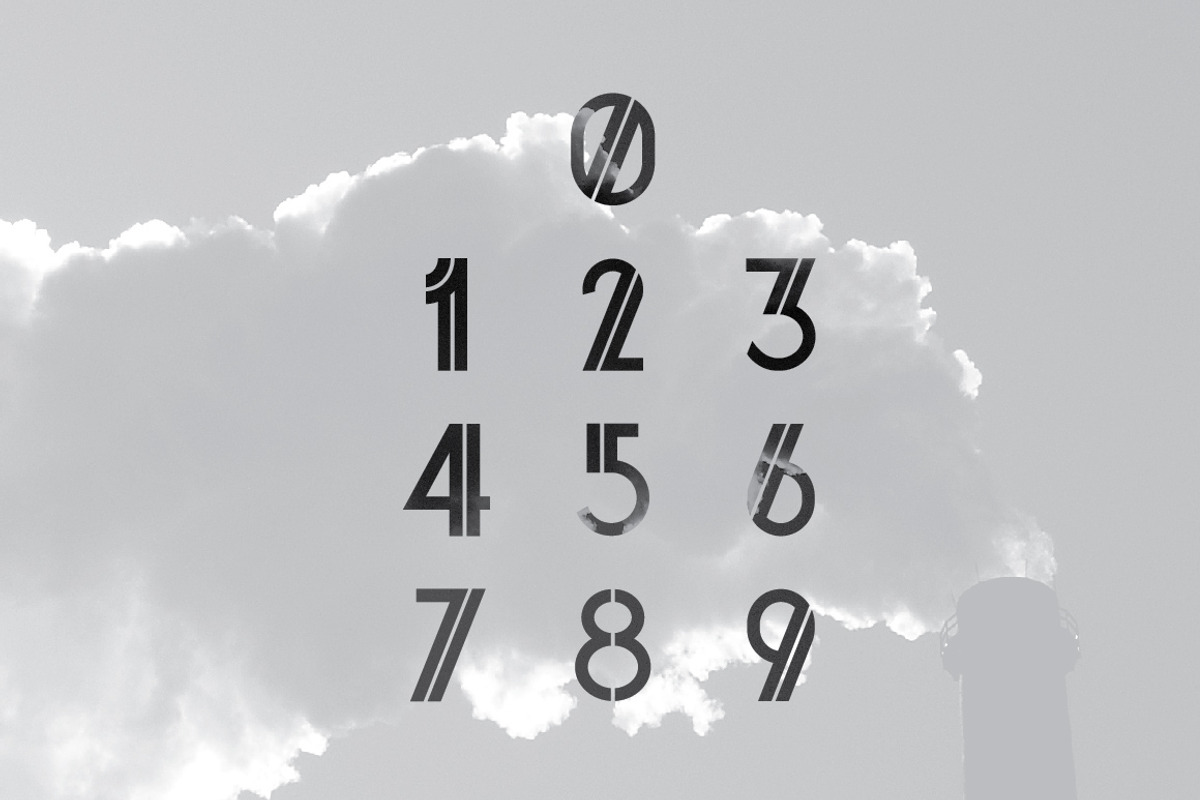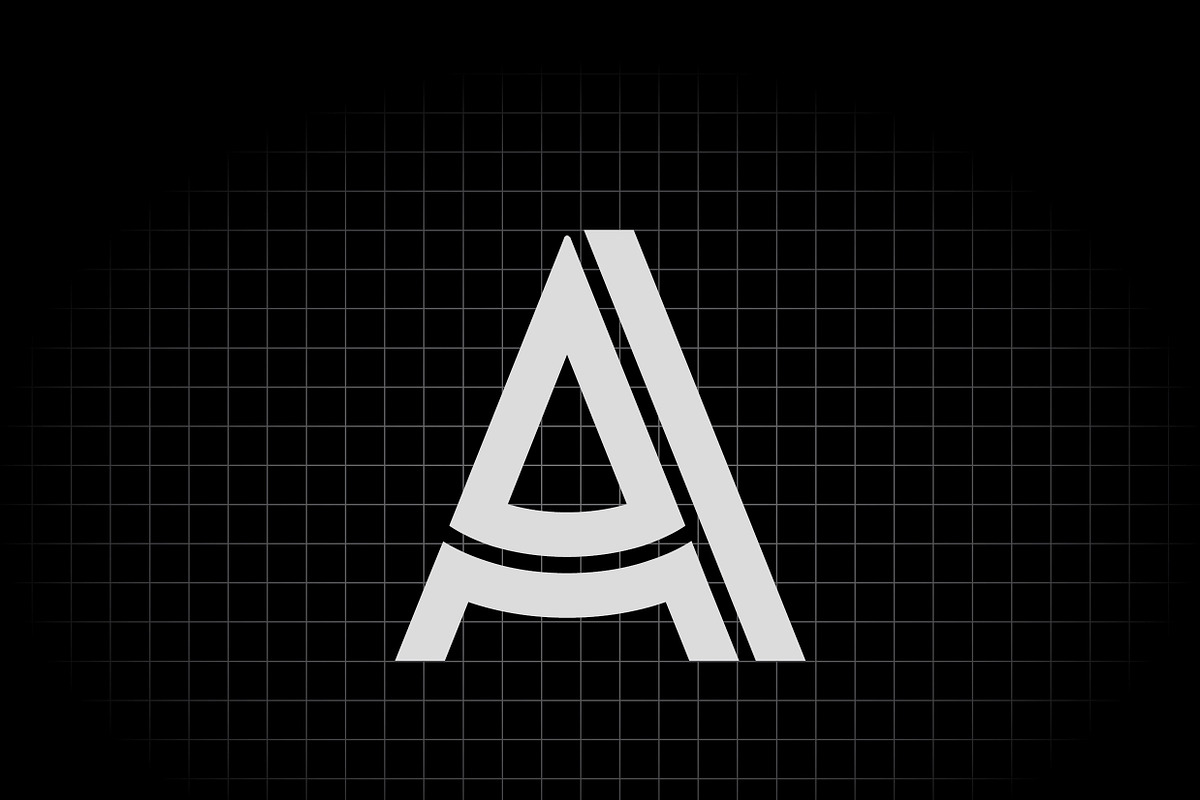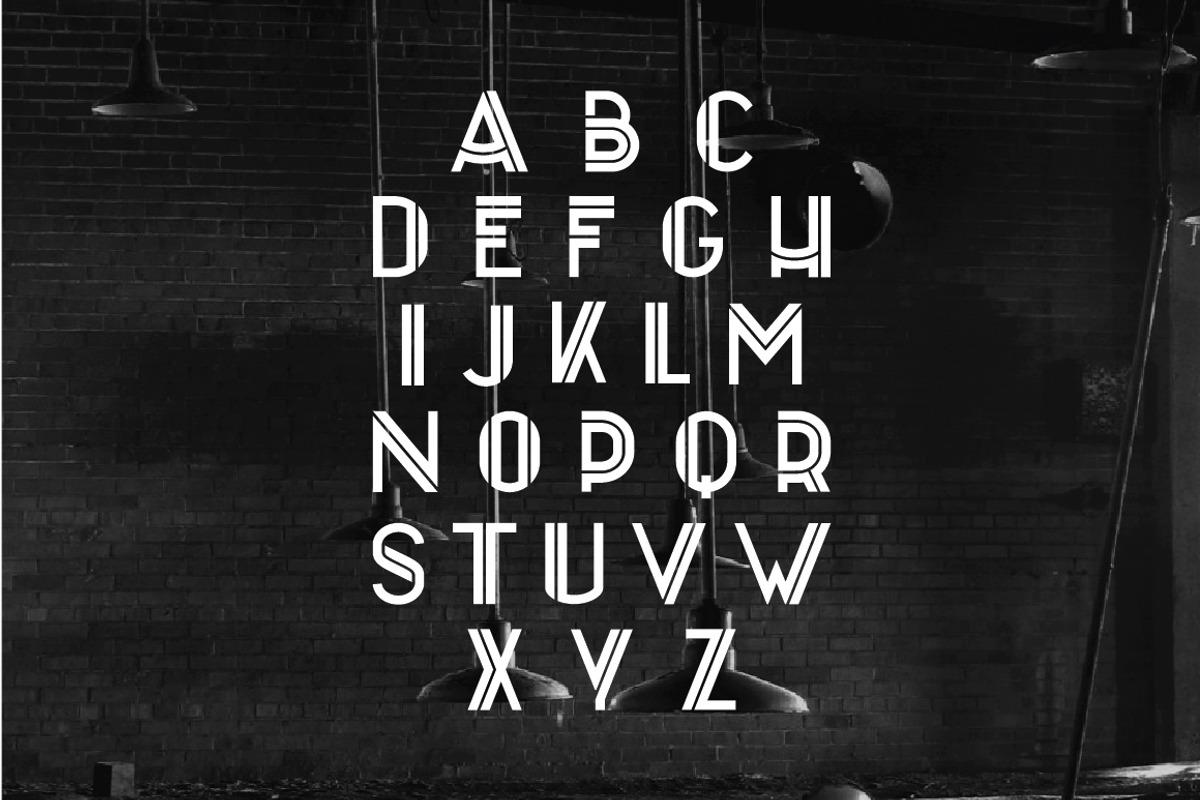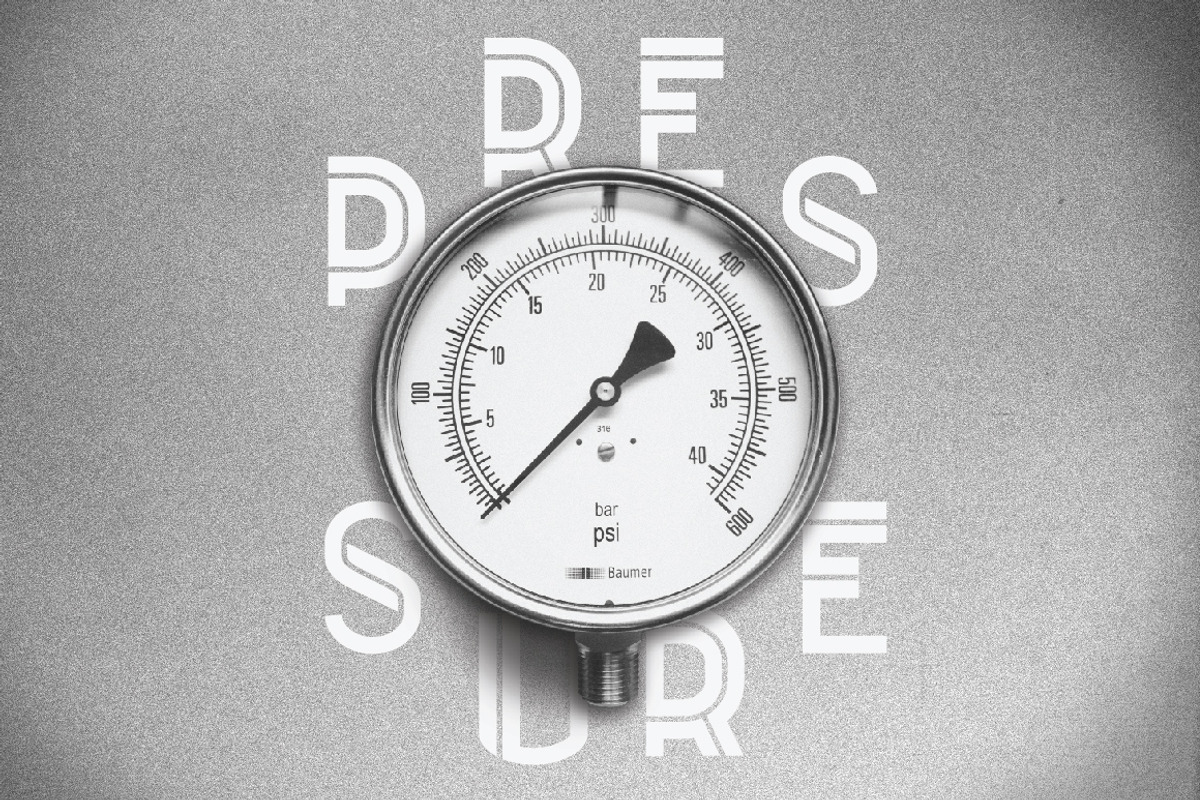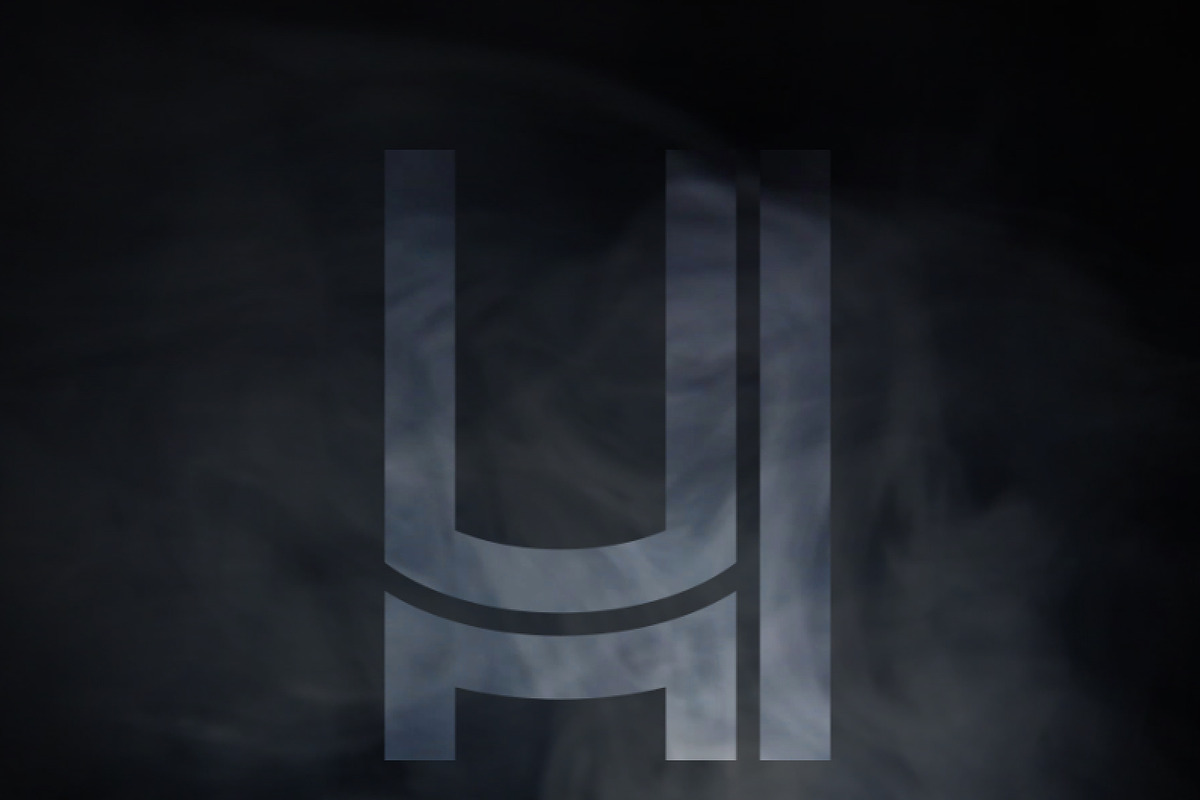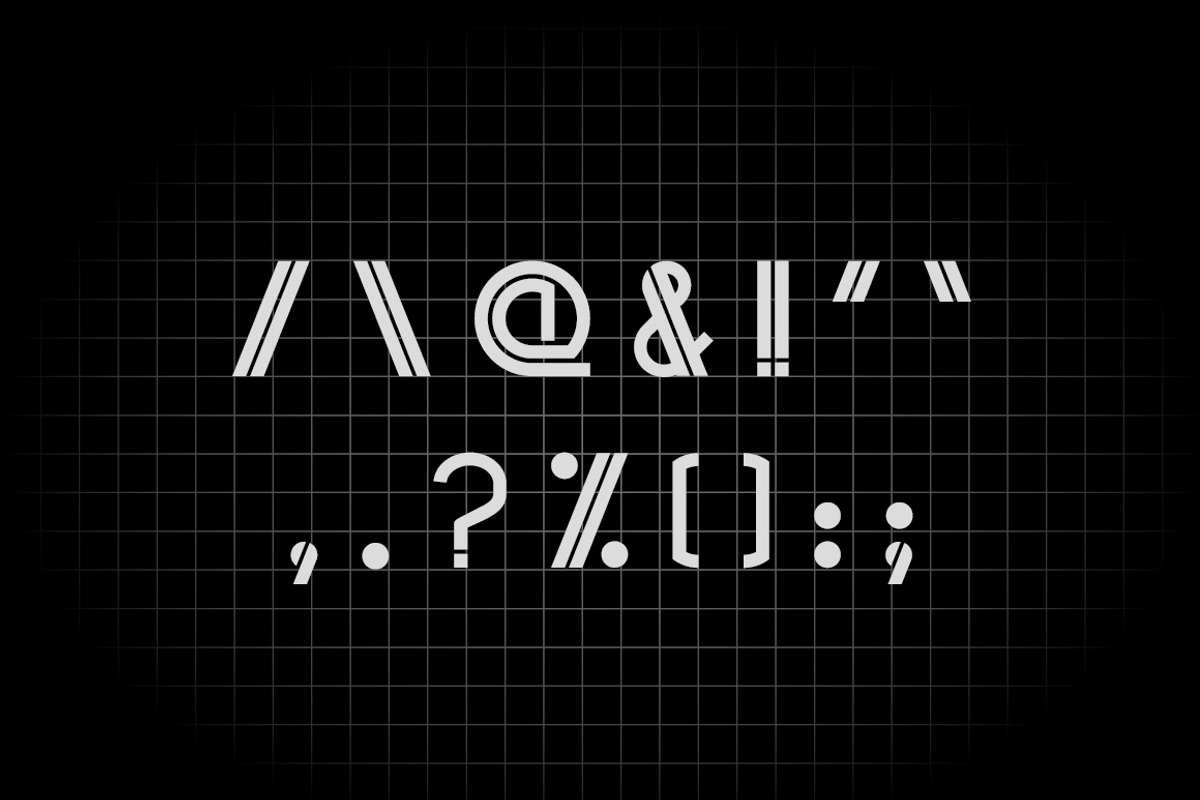
Tagus Font (full version)
Tagus Font (full version) by Pedro Azedo is a font selected for branding, posters, packaging, typography.
- The font includes uppercase, numerals & punctuations.
Why Tagus Font (full version) is worth a look
Tagus Font (full version) by Pedro Azedo fits naturally into Branding, posters, packaging, typography.